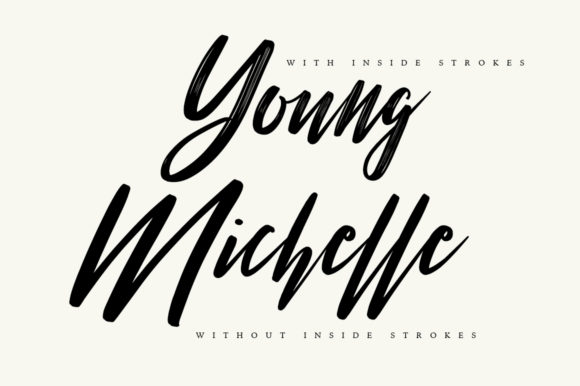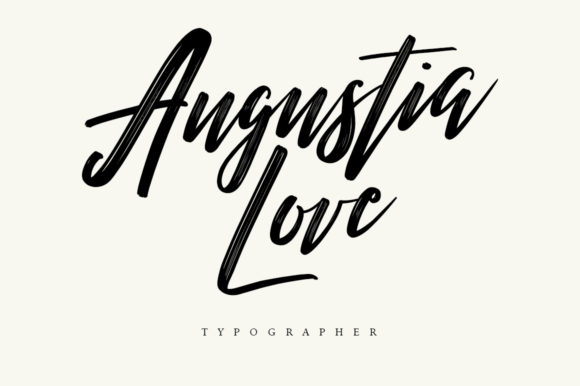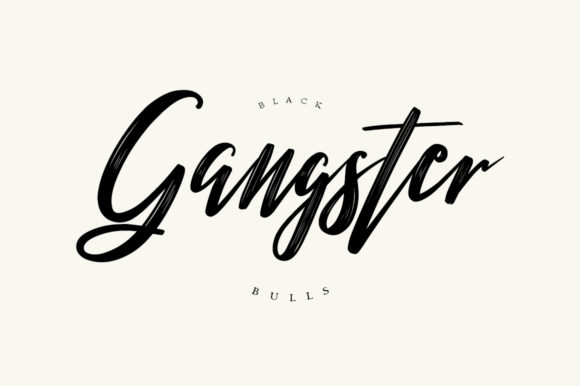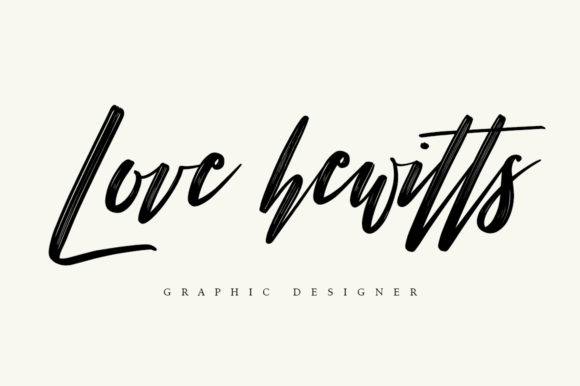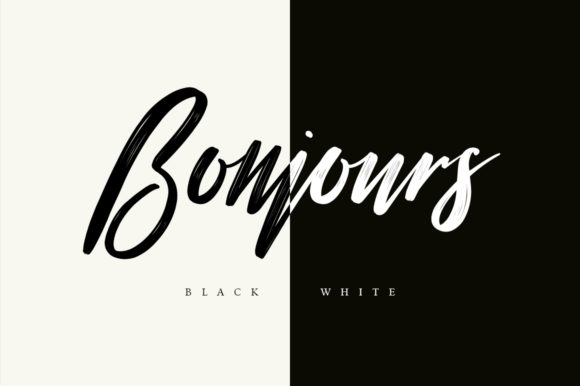
Introduction to Kottam Font
Kottam is a bold and assertive handwritten font, created with the help of an unique brush pen.
Whether youโ€™re looking for fonts for Instagram or calligraphy scripts for DIY projects, this font will turn any creative idea into a true piece of art .
Key Features of Kottam Font
Why Choose Kottam Font?
Kottam Font offers exceptional quality and versatility, making it a valuable addition to your design toolkit. Whether you’re creating for personal projects or commercial use, Kottam Font delivers professional results.